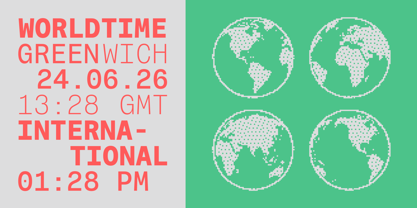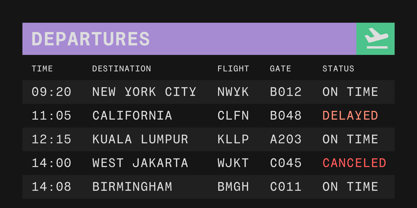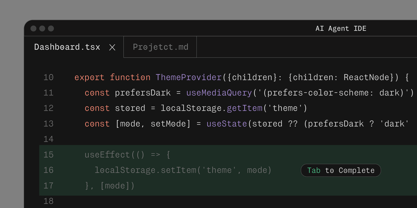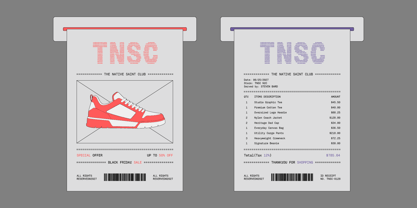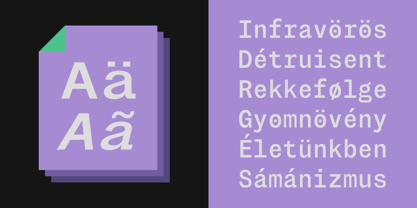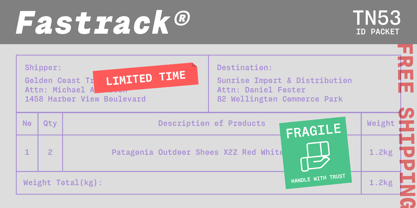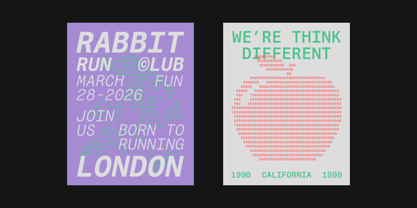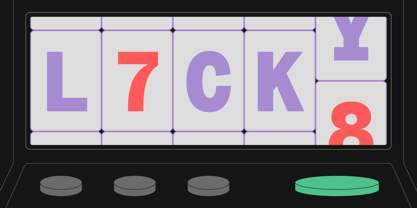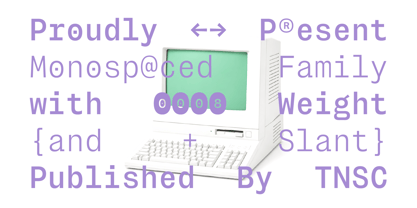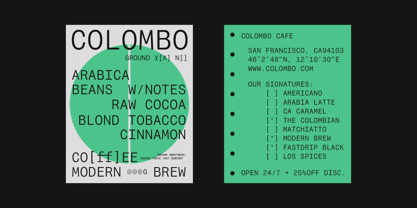
Montase Mono
The Montase Mono Font Family was designed by Bagas Ferdiansah, Septianto Nugroho and published by The Native Saint Club. Montase Mono contains 17 styles and family package options. More about this family
Montase Mono is a modern monospaced typeface designed for precise, structured, and contemporary visual communication. Built with a clean technical rhythm, this typeface combines the functional nature of monospace typography with a refined display character.
Inspired by digital interfaces, coding environments, transit systems, shipping documents, identification cards, data screens, and utilitarian graphic design, Montase Mono is made for projects that require clarity, consistency, and a strong typographic presence.
Its balanced spacing, sharp construction, and carefully developed letterforms make it suitable for both display and system-based design. From editorial layouts and brand identities to packaging, posters, UI-inspired graphics, labels, and product campaigns, Montase Mono offers a flexible foundation for modern design work.
The family includes 8 weights, ranging from Thin to Extra Bold and Slant styles. This allows designers to build clear hierarchy, dynamic layouts, and consistent typographic systems across different applications.